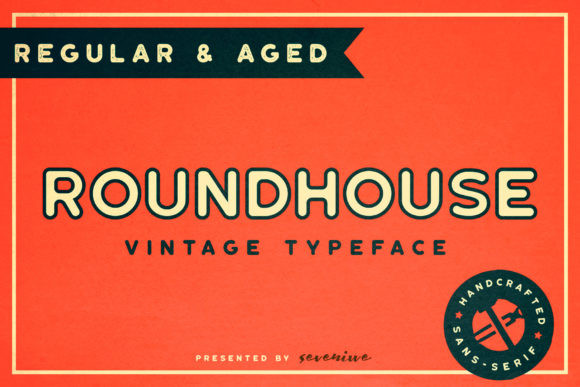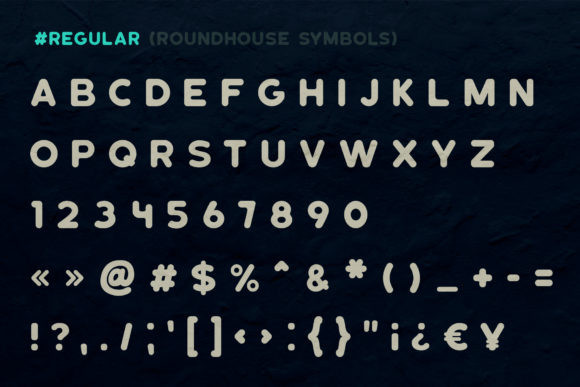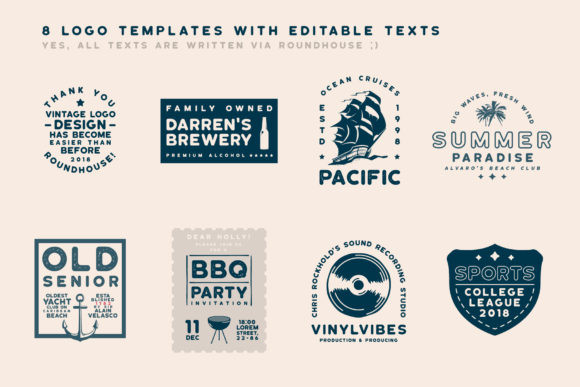
Roundhouse Font
Roundhouse is a friendly and warm display font featuring rounded sans serif characters. With its slight retro feel, it will add a nostalgic vibe to any design project!